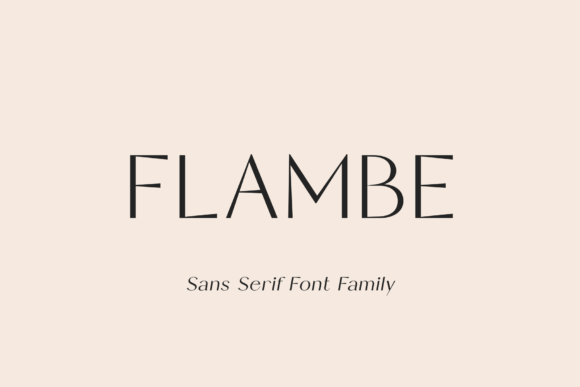
Introducing Flambe Font: The Ultimate Elegant and Modern Contrast Sans-Serif Font Family
In the world of typography, a font can make or break a design project. When it comes to creating a lasting impression, the right font choice is crucial. This is where Flambe Font comes in – an elegant, modern, and expressive contrast sans-serif font family that is perfect for fashion projects and beyond. In this article, we’ll dive into the features and benefits of Flambe Font, and explore how it can elevate your design projects to the next level.
Key Features of Flambe Font
- Elegant and Modern Design: Flambe Font boasts a sleek and sophisticated design, making it perfect for fashion projects that require a touch of elegance.
- Contrast Sans-Serif Font Family: The font features a unique contrast sans-serif design, which provides a beautiful balance between modernity and readability.
- Multi-Purpose: Flambe Font is a versatile font that can be used for a wide range of design projects, including logos, banners, advertising, packaging, book covers, magazines, headings, descriptions, and more.
- Upright and Italic Styles: The font includes both upright and italic styles, giving you flexibility and variety in your design choices.
- Four Weights: Flambe Font comes in four weights, ranging from light to bold, allowing you to create a hierarchy of text and add depth to your designs.
Design Applications for Flambe Font
Flambe Font is an incredibly versatile font that can be used in a variety of design applications. Here are some ideas to get you started:
- Logos and Branding: Create a lasting impression with a custom logo that incorporates Flambe Font. The font’s elegant and modern design makes it perfect for luxury brands, fashion labels, and high-end businesses.
- Banners and Advertising: Use Flambe Font to create eye-catching banners and advertisements that grab attention and leave a lasting impression.
- Packaging and Product Design: Add a touch of elegance to your product packaging with Flambe Font. The font’s contrast sans-serif design makes it perfect for product labels, packaging materials, and instruction manuals.
- Book Covers and Magazines: Create stunning book covers and magazine layouts with Flambe Font. The font’s readability and elegance make it perfect for headings, titles, and descriptions.
Typography Tips for Using Flambe Font
To get the most out of Flambe Font, here are some typography tips to keep in mind:
- Use Contrast to Create Visual Hierarchy: Take advantage of Flambe Font’s contrast sans-serif design to create a visual hierarchy in your designs. Use bold weights for headings and lighter weights for body text.
- Experiment with Tracking and Kerning: Adjust the tracking and kerning of Flambe Font to create a unique and customized look. This is especially effective for logos and headings.
- Pair with Other Fonts: Flambe Font pairs well with other sans-serif fonts, as well as serif fonts. Experiment with different font combinations to create a unique and visually appealing design.
The Benefits of Using Flambe Font
So why choose Flambe Font for your design projects? Here are just a few benefits of using this elegant and modern font:
- Unique and Memorable: Flambe Font’s contrast sans-serif design makes it stand out from other fonts. Use it to create unique and memorable designs that leave a lasting impression.
- Readability and Legibility: The font’s elegant and modern design makes it easy to read and understand, even at small sizes.
- Fashionable and On-Trend: Flambe Font is a fashionable and on-trend font that’s perfect for fashion projects and designs that require a touch of elegance.
In conclusion, Flambe Font is an elegant, modern, and expressive contrast sans-serif font family that’s perfect for fashion projects and beyond. With its unique design, versatility, and readability, Flambe Font is a great choice for designers looking to create stunning and memorable designs. Whether you’re creating logos, banners, advertising, packaging, book covers, or magazines, Flambe Font is sure to elevate your designs to the next level.